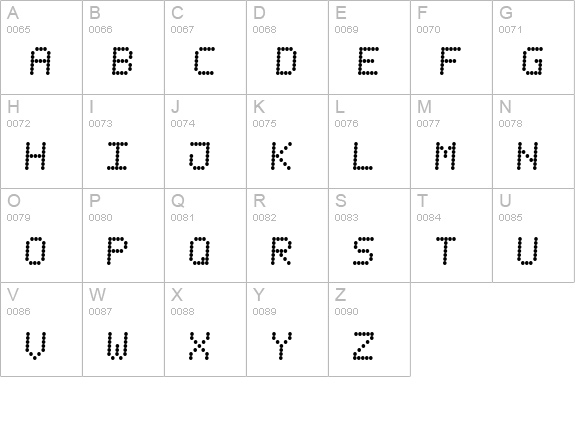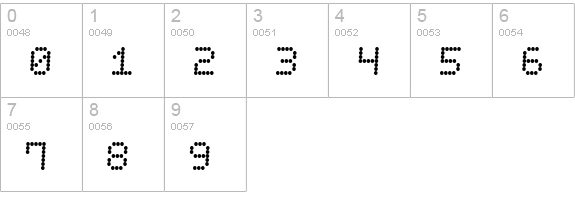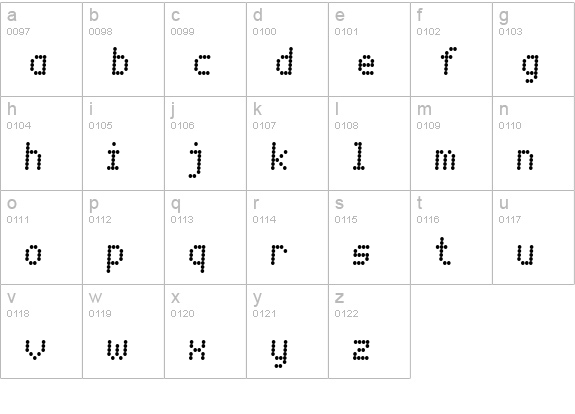
LED Counter 7 Italic is a distinctive, italic variant in the LED typeface family \xE2\x80\x94 well suited to design and typography projects.
The LED Counter 7 Italic font is a stunning display font that adds a touch of modernity and sophistication to any design project. With its sleek and slim letterforms, this font is perfect for creating eye-catching headlines, signage, and logos. What sets LED Counter 7 Italic font apart is its unique LED-inspired design. Each letter is meticulously crafted to resemble the glowing lights of a digital counter, giving your designs a futuristic and high-tech look. The italic style of the font adds a dynamic and energetic feel, making it ideal for projects that require a sense of motion and excitement. Not only does LED Counter 7 Italic font offer a visually appealing aesthetic, but it also provides excellent legibility. The precise and well-defined letterforms ensure that your message is easily readable, even from a distance. One of the best things about LED Counter 7 Italic font is that it is freely available to download at FontsMarket.com. This means that you can easily access this amazing font without any cost, making it a valuable addition to your design resources. Whether you're a professional designer or a hobbyist, having this font in your collection will surely elevate your creative projects. So why wait? Download LED Counter 7 Italic font today and bring a touch of futuristic elegance to your designs. Let your creativity shine with this remarkable font that combines cutting-edge style with effortless readability.